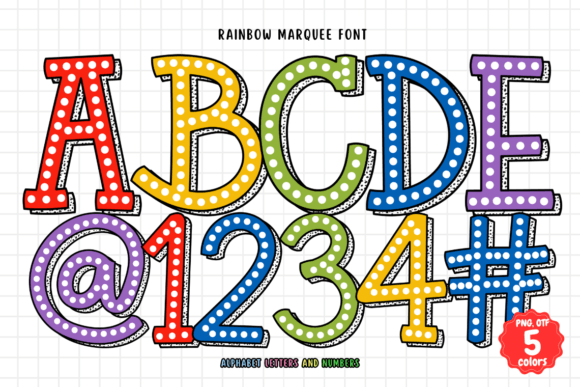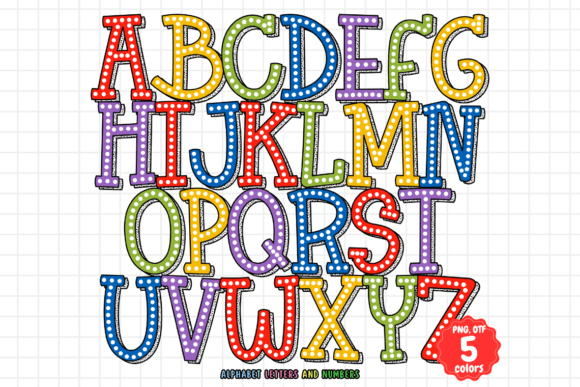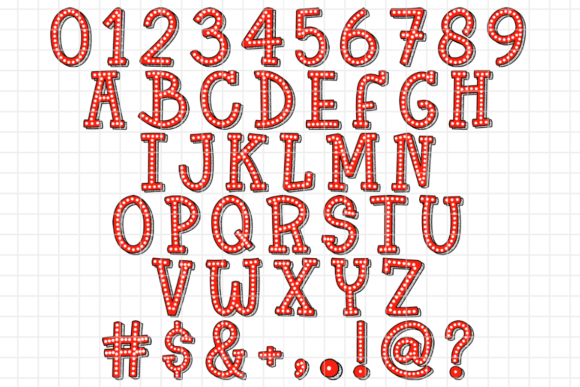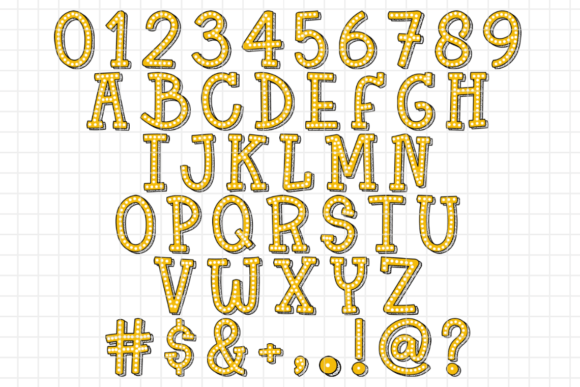
Rainbow Marquee Font
Rainbow Marquee font is a bold and vibrant handwritten font that brings the dazzling appeal of marquee lights to your projects. Perfect for school materials, creative art, holiday designs, and graphic projects, this font adds a touch of excitement and energy to any work. With its eye-catching, multicolored letters, Rainbow Marquee is ideal for making headlines, posters, banners, and other standout pieces that need attention. Whether you’re designing for educational purposes, holiday celebrations, or creative art, this font provides a playful yet striking look that will make your work shine.